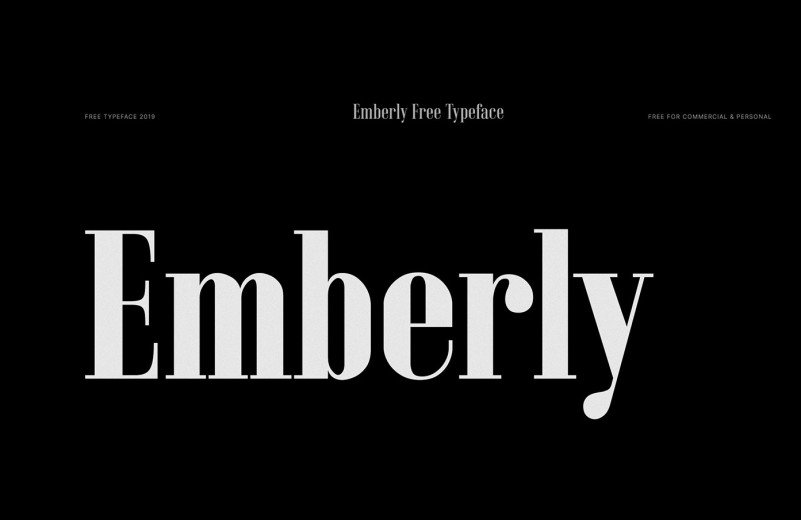
Emberly Slab Serif Font
Emberly Slab Serif Font is a truly versatile companion for your next design project. And It’s a stylish and elegant, condensed display serif typeface. This typeface is a modern display slab serif Font will look gorgeous on all your designs, invitation, poster design, book design, branding materials, logo’s, t-shirt etc.